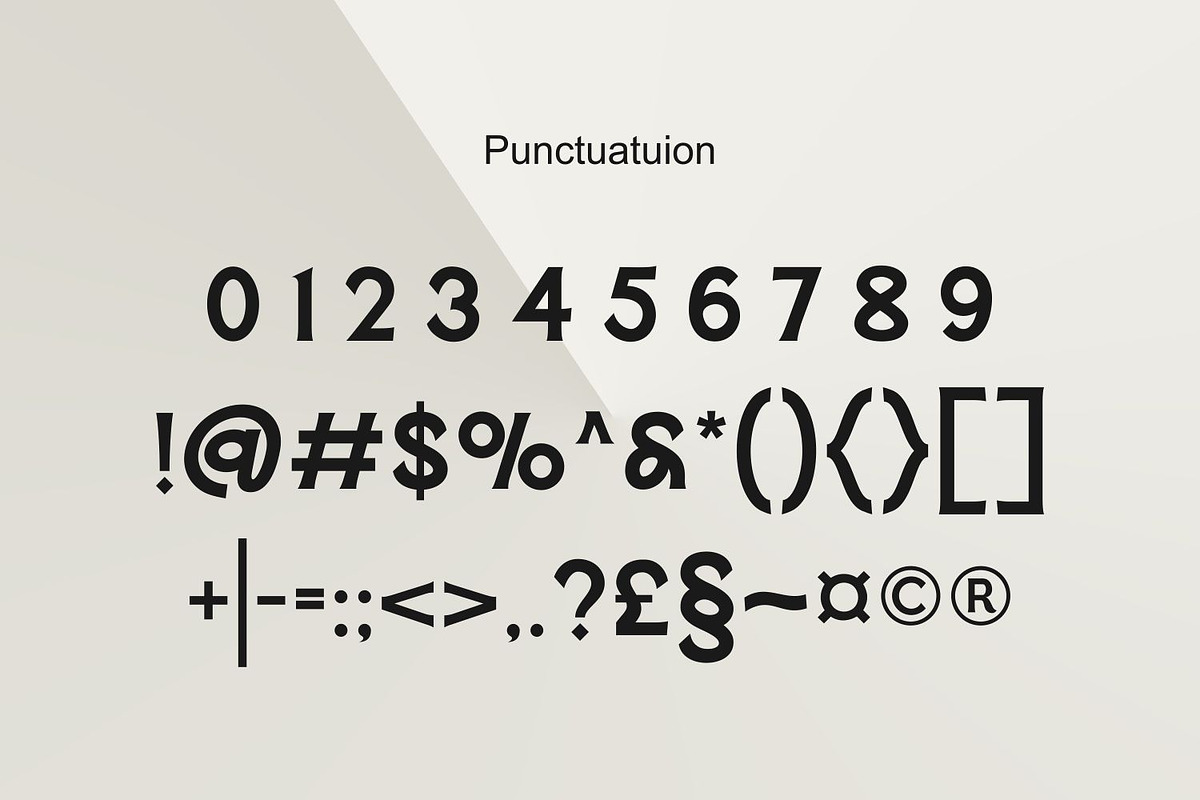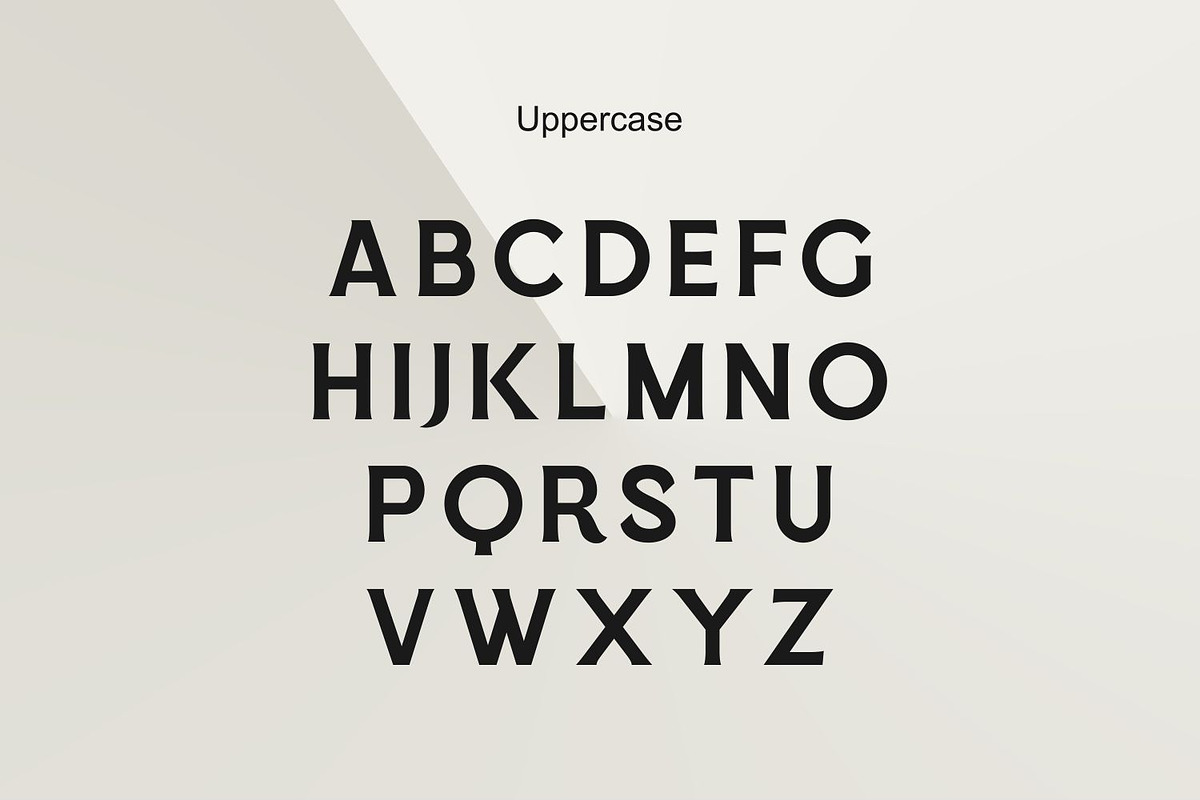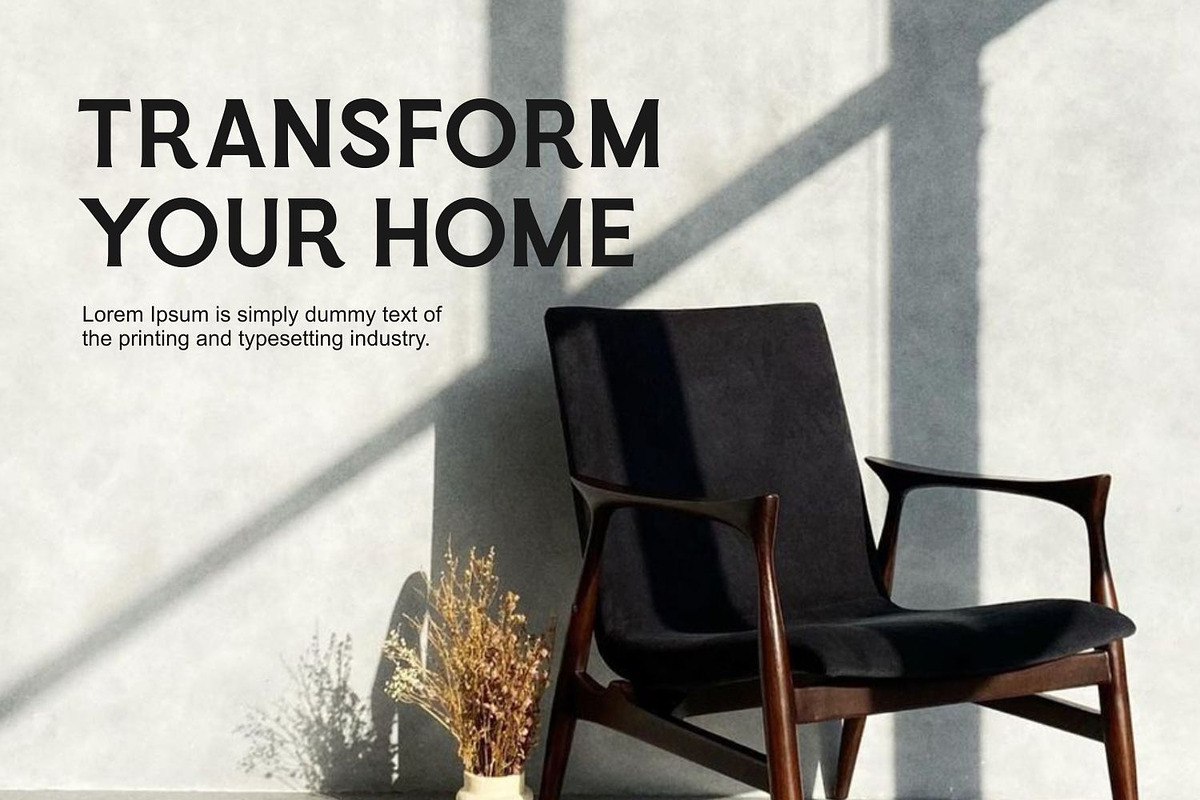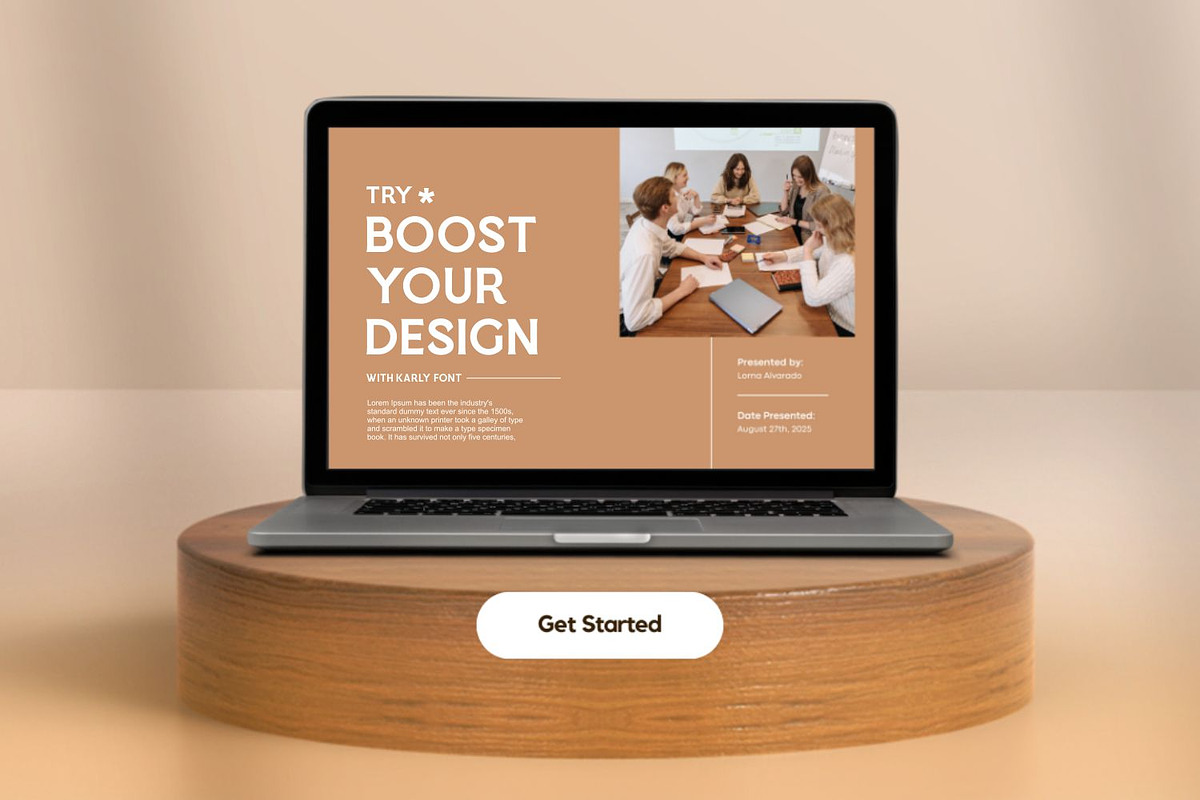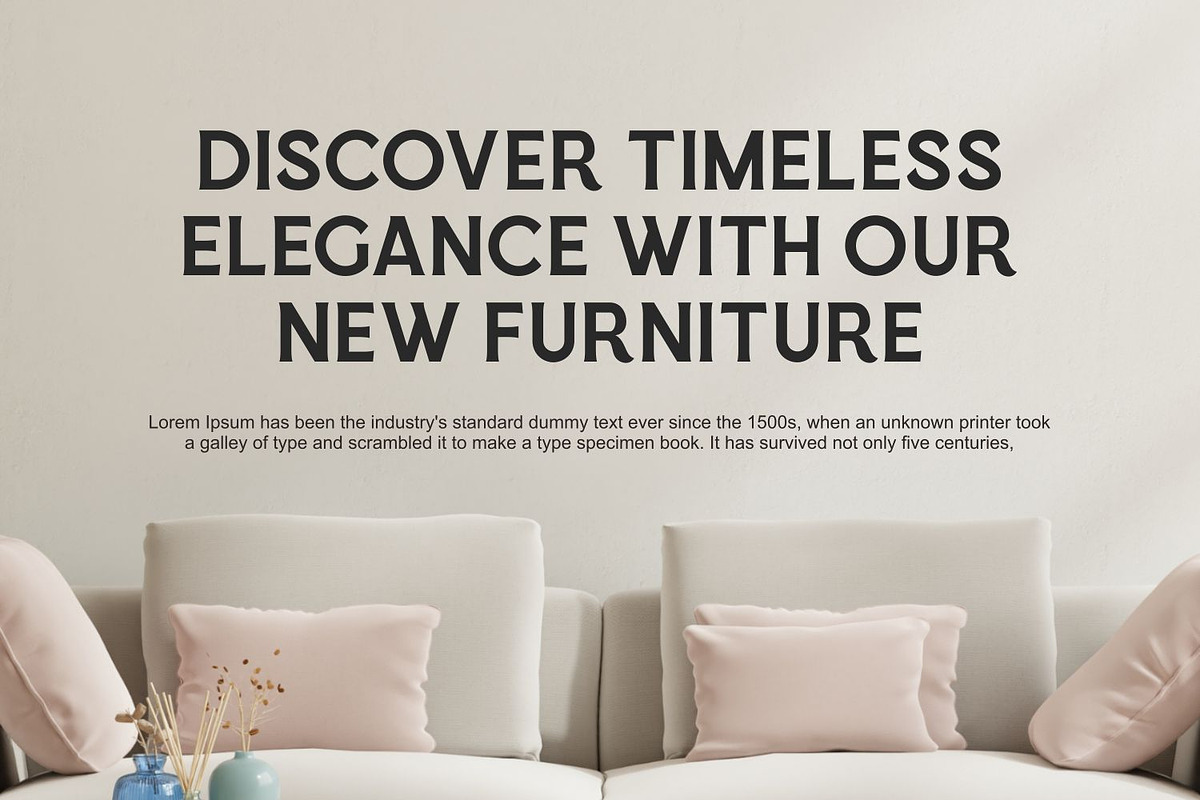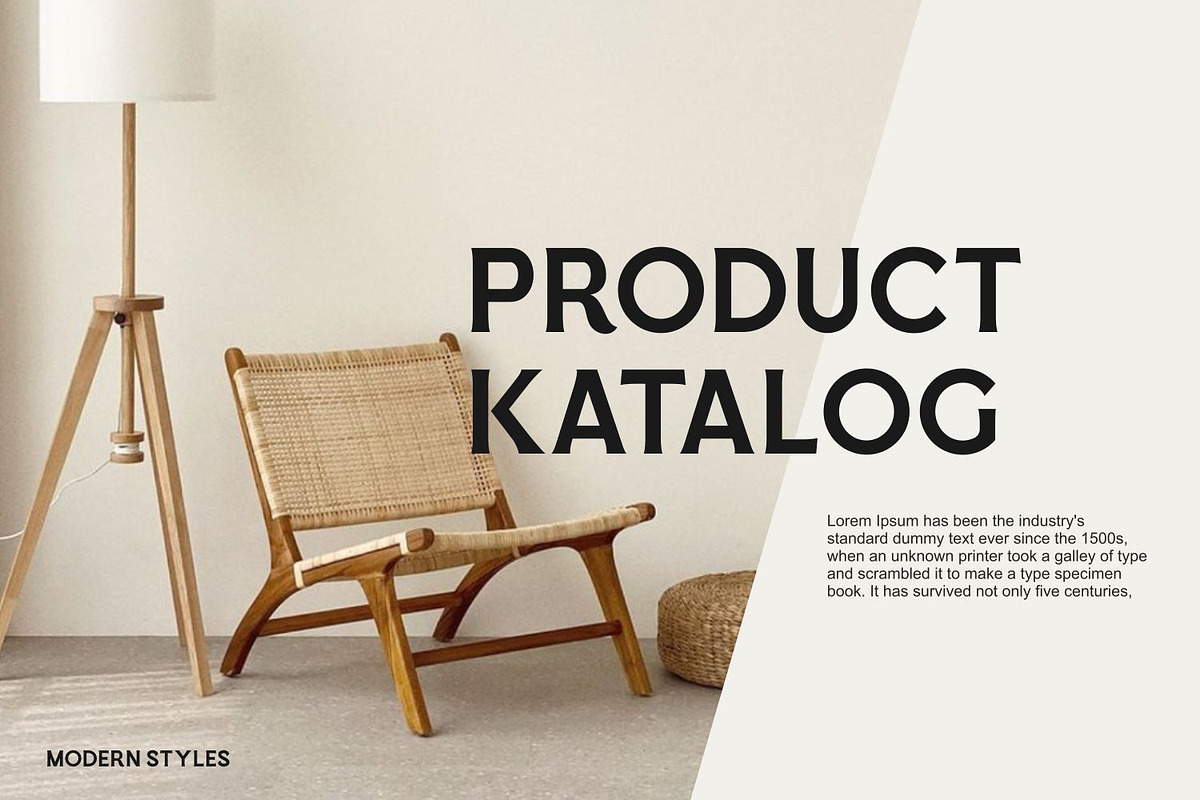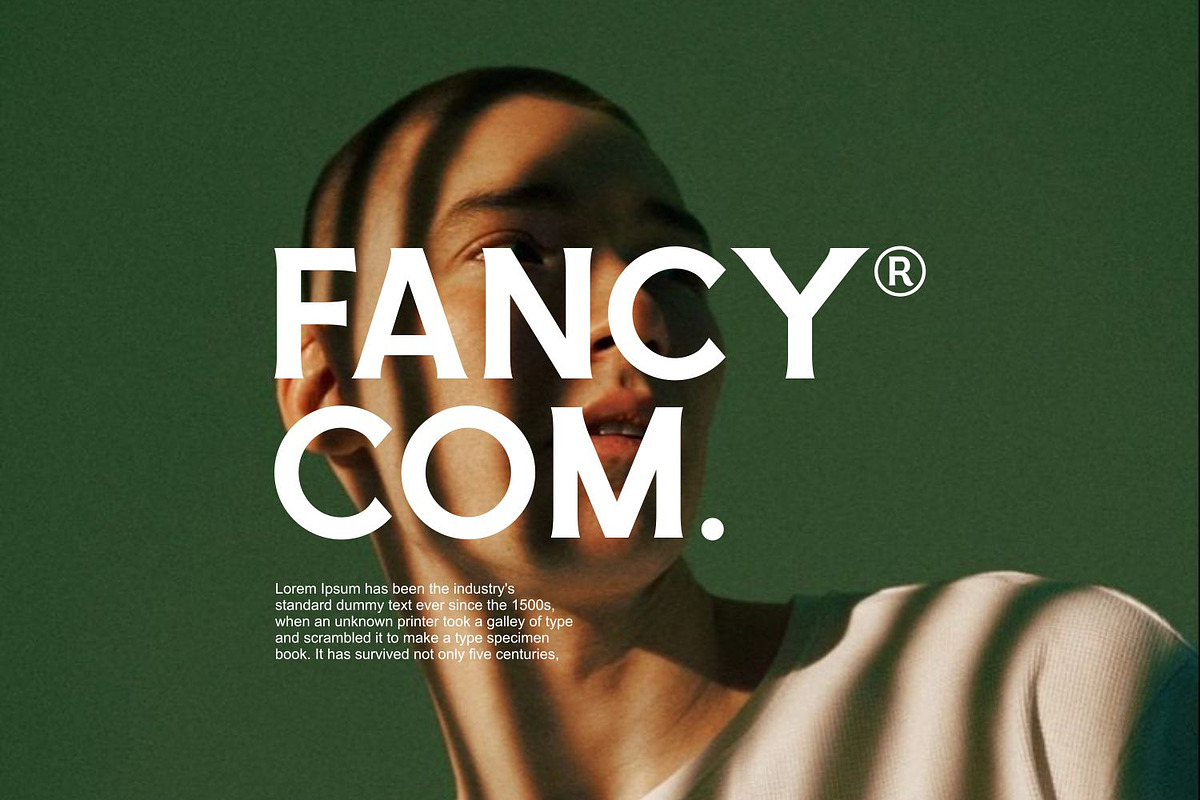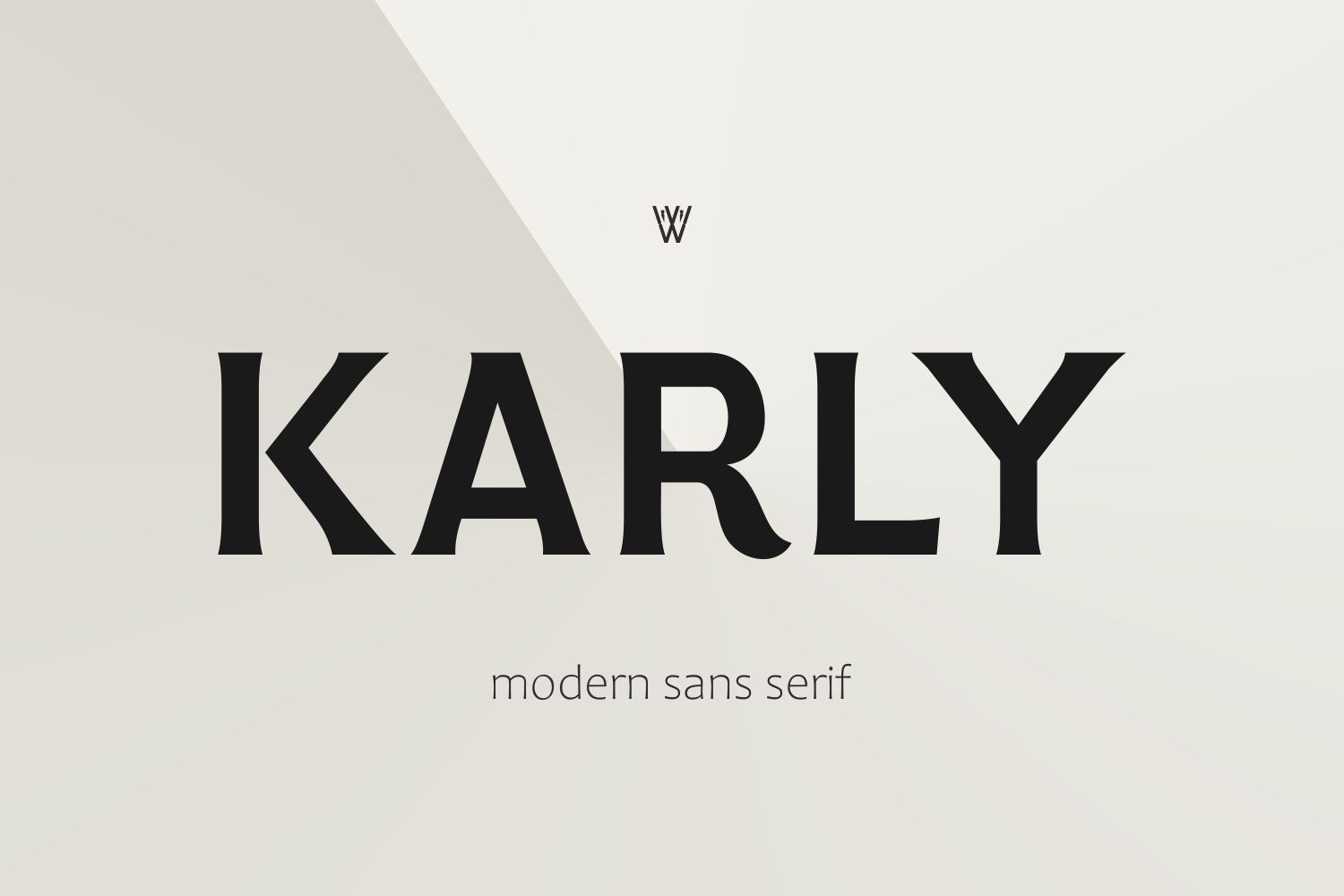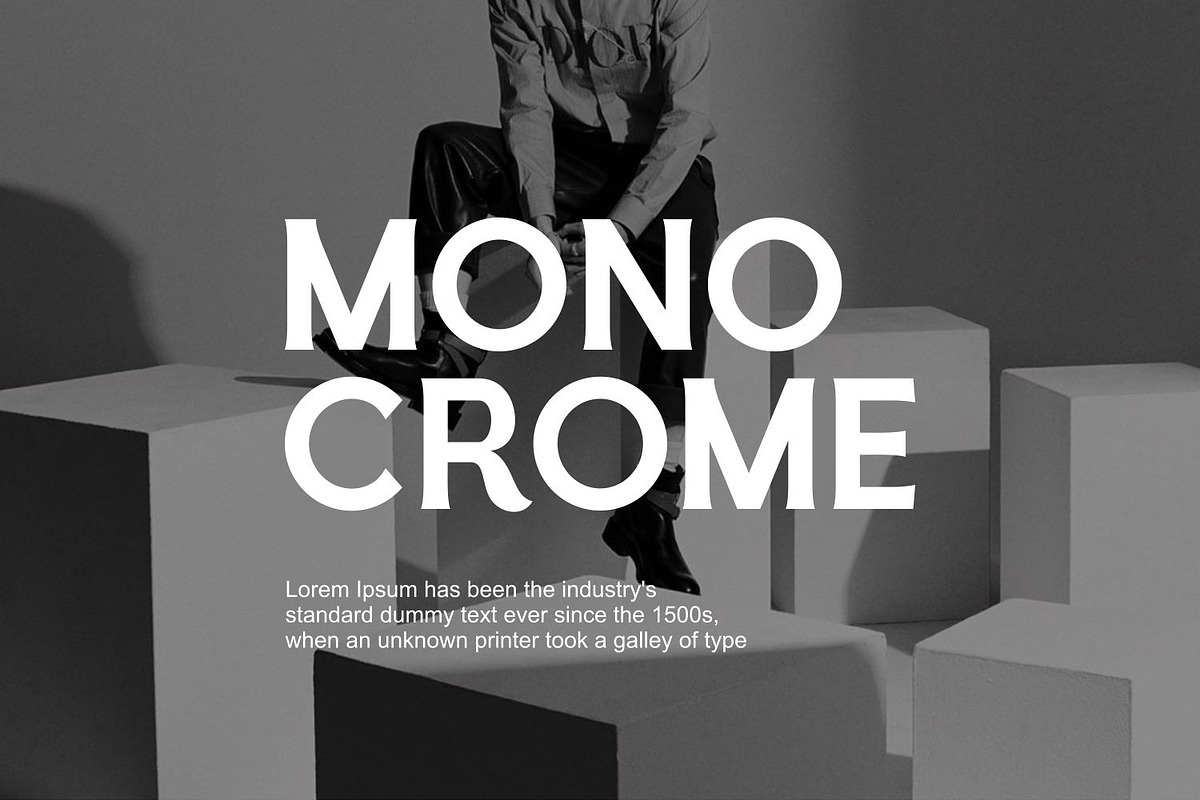
KARLY | Bold Luxury Serif Font
Introducing KARLY, a bold and luxurious serif font crafted to elevate your designs with simplicity and elegance. This versatile font is perfect for invitations, branding, headlines, and PowerPoint templates, giving each project a stylish, professional look. Whether you're designing for Cricut, Procreate, Canva, or other platforms, KARLY provides ease of use and compatibility across all major design tools.
Ideal for weddings, events, business presentations, and social media graphics, KARLY’s modern simplicity brings sophistication to any project. The font’s clean lines and impactful weight make it a standout choice for titles, headers, and brand logos. With full commercial use rights, KARLY is the perfect addition to your design toolkit, whether for personal projects or professional crafting.
Ideal For: 👉 Wedding Invitations & Event Materials: Perfect for creating upscale, elegant stationery. 👉 Branding & Logos: Add a bold, luxurious look to brand identities and marketing materials. 👉 Cricut & Crafting Projects: Easily adaptable for crafting supplies, digital designs, and custom creations. 👉 Social Media & Presentations: Great for impactful titles, headers, and social media content.
Features : ✅ Multilingual ✅ Uppercase alphabet A-Z ✅ Lowercase alphabet a-z ✅ Alternate Character ✅ Numbers 0-9 ✅ Some punctuation